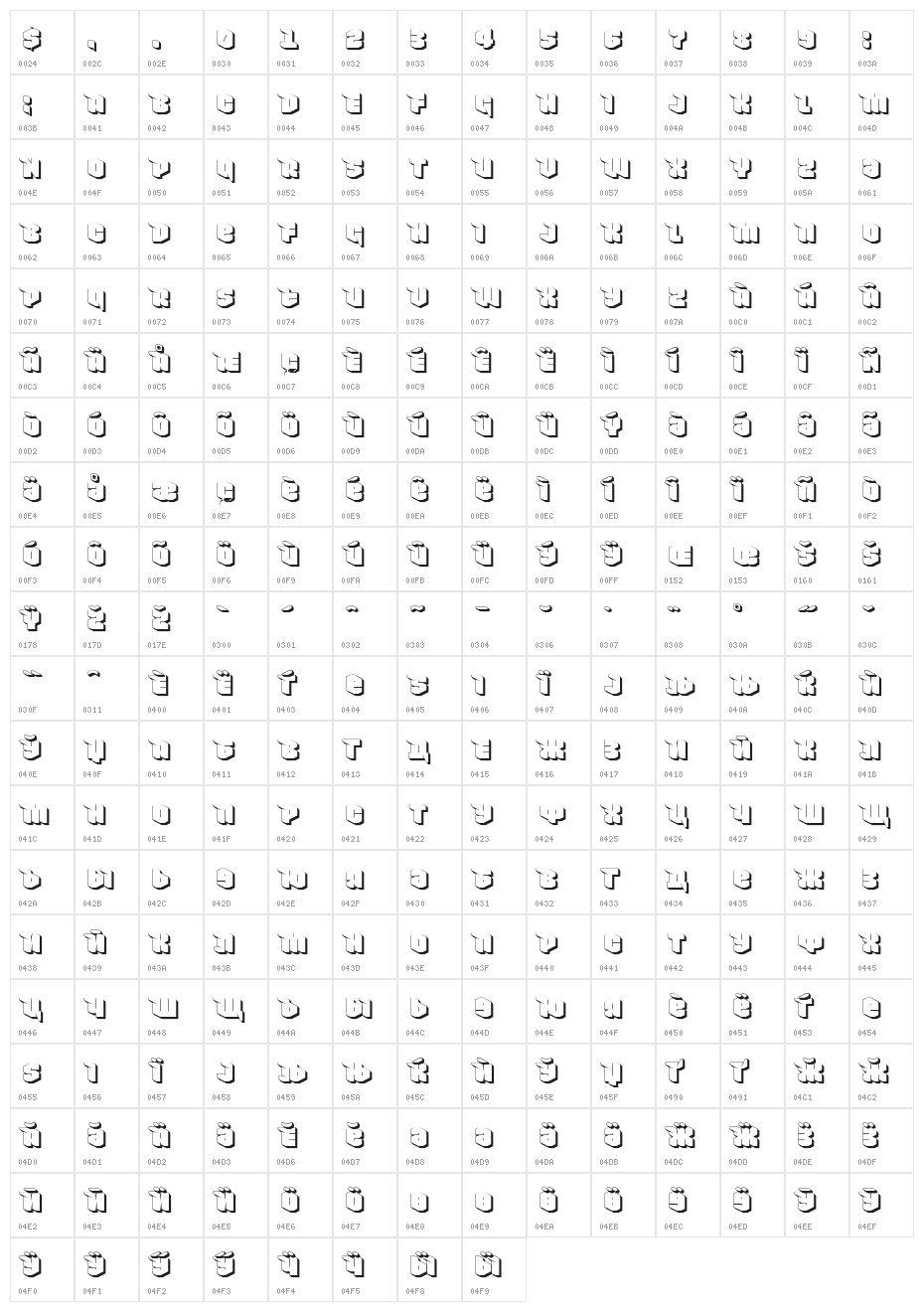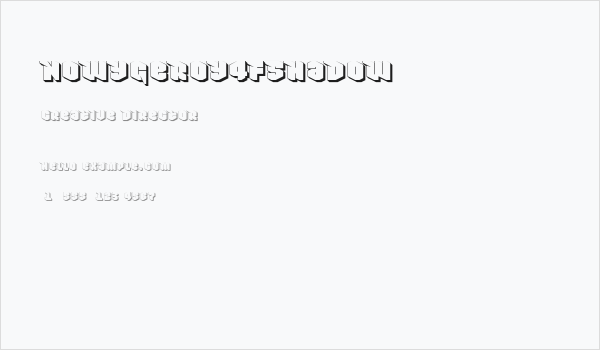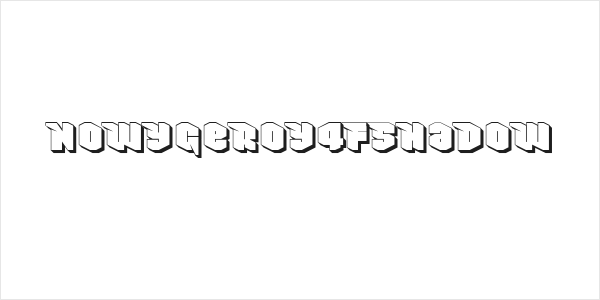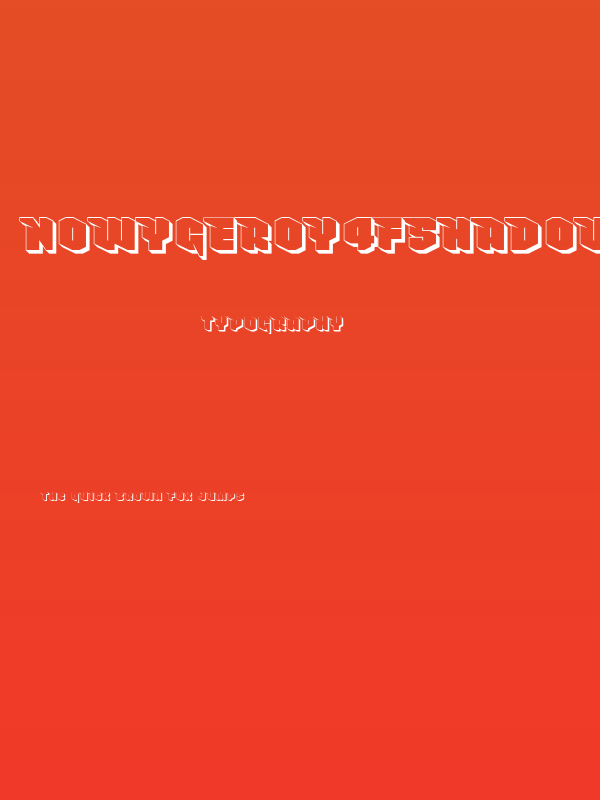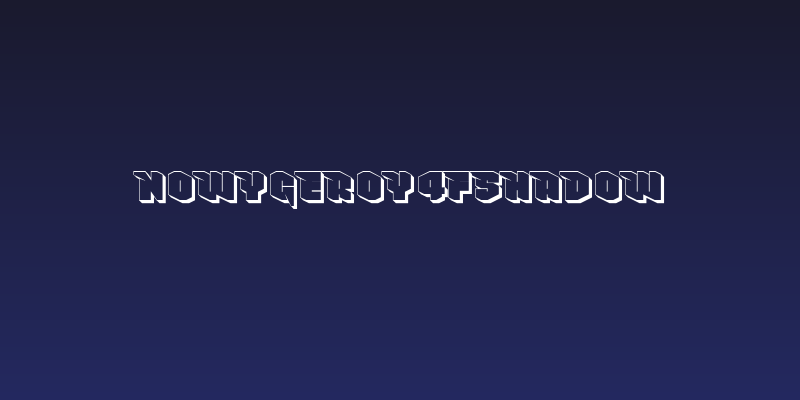
NowyGeroy4FShadow Font
NowyGeroy4FShadow Description
This font features a bold, three-dimensional design with a shadow effect that gives each character a striking, impactful appearance. The letters are blocky and geometric, with sharp angles and clean lines that create a sense of depth and dimension. The shadowing adds a layer of complexity, making the characters stand out against any background. This style is reminiscent of retro or vintage signage, yet it maintains a modern edge with its crisp execution. The font is highly legible, even at smaller sizes, due to its clear and distinct letterforms. It includes a full set of uppercase and lowercase letters, numbers, and a selection of special characters, making it versatile for various design needs.
| Overall Style | Retro, Modern |
| Proposed Projects | Ideal for poster designs, video game graphics, retro-themed branding, and eye-catching headlines. |